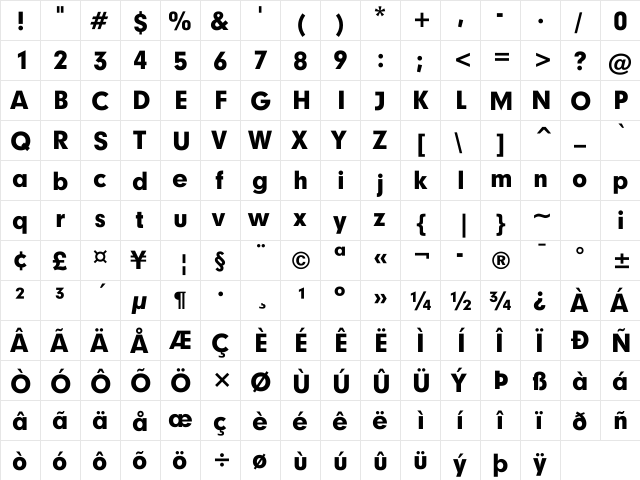
Shankbink Black Regular
Design Context for Shankbink Black Typeface
Shankbink Black takes a measured approach to typography — its balanced proportions and neutral character make it a reliable workhorse for both digital and print work.